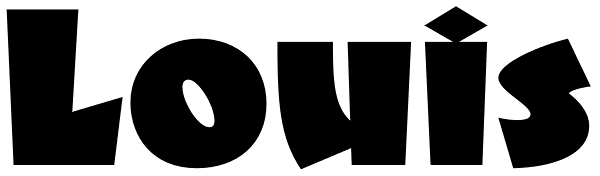
Louis
Louis is a faithful digital rendition and expansion of a design called Fanfare, originally drawn by Louis Oppenheim in 1927. Redrawn digitally by Rod MacDonald, and engineered in-house by Canada Type, Louis includes the many alternates that came...